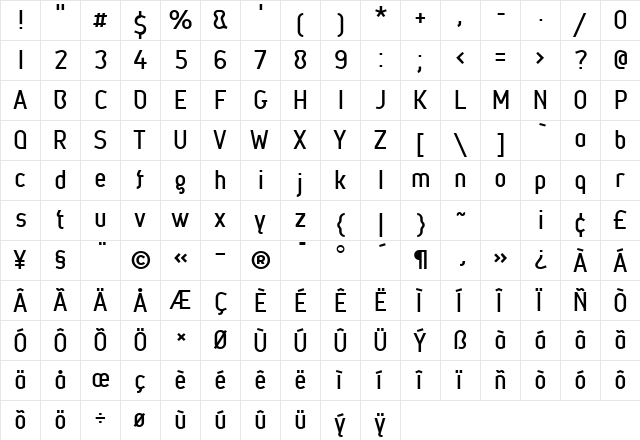
MetsysMedium Regular Font Preview
MetsysMedium Regular
Design Context for MetsysMedium Typeface
MetsysMedium is a composed and adaptable typeface that performs quietly and consistently across a wide range of design contexts.